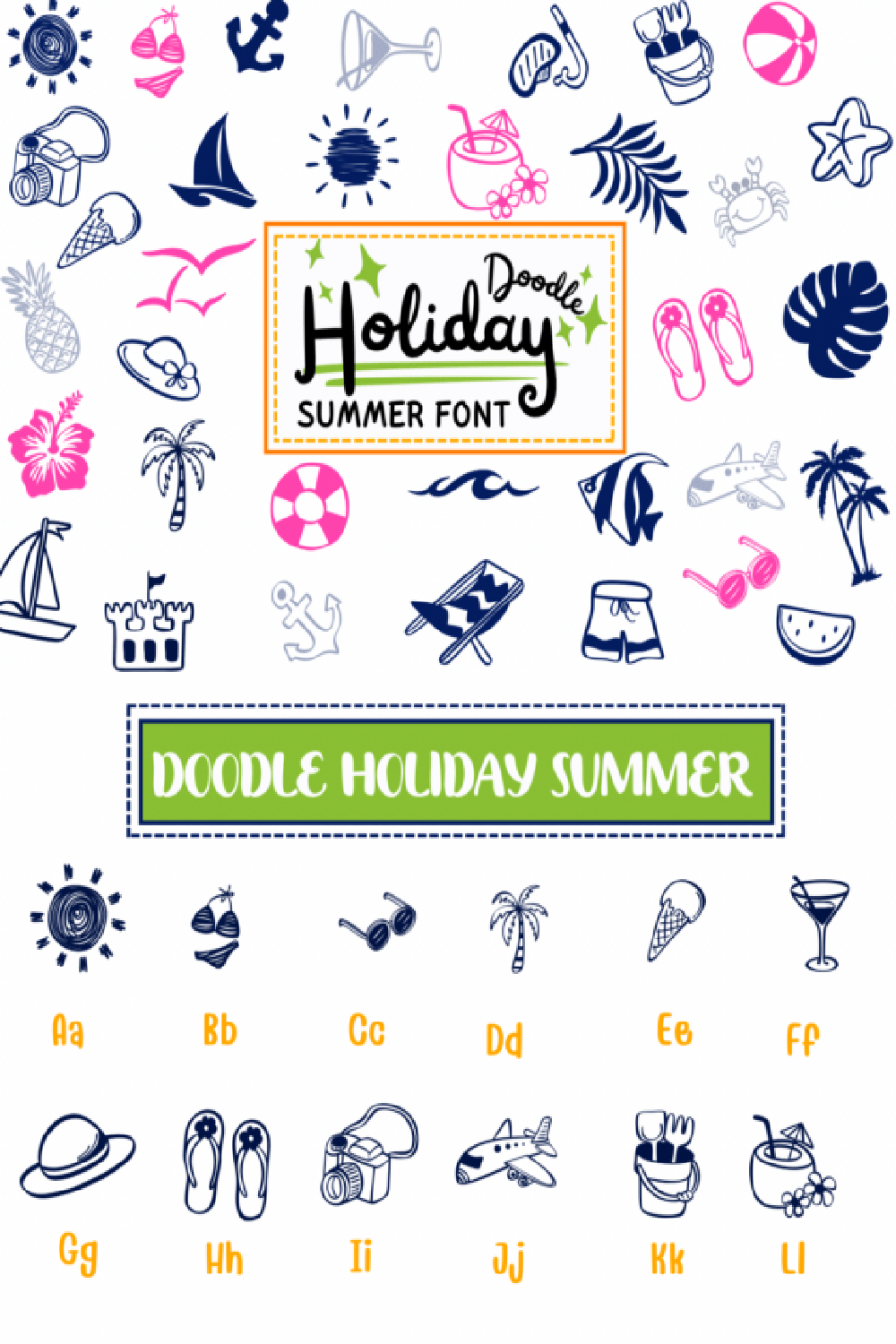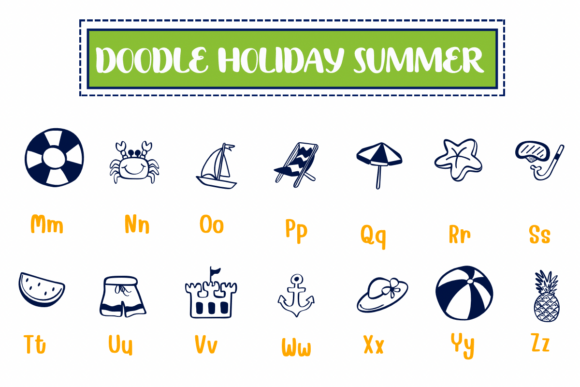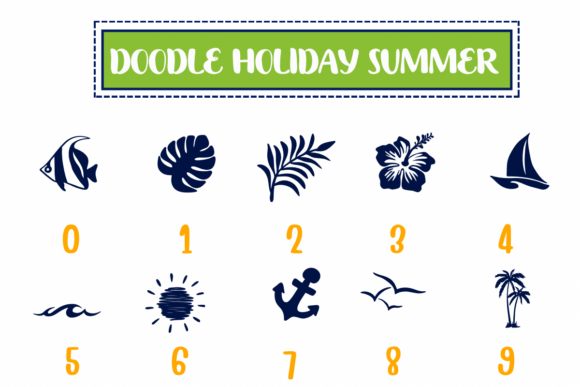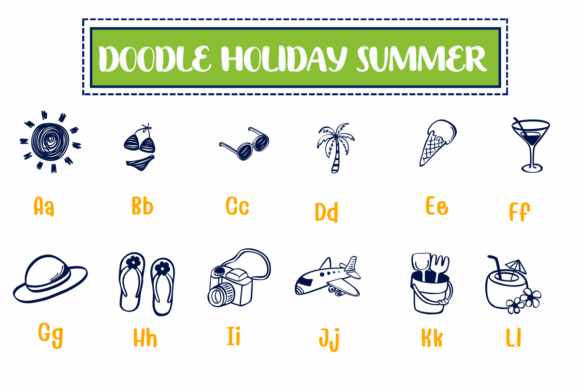
Doodle Holiday Summer Font
About the Doodle Holiday Summer Font
Unleash your creativity with Doodle Holiday Summer Font, a versatile font perfect for a wide range of applications. Holiday Doodle – Summer Font is a vibrant and playful dingbats font filled with hand-drawn summer icons. From beach balls and flip-flops to sailboats and tropical drinks, this collection captures all the fun and relaxation of a perfect vacation. Ideal for summer-themed designs, party invites, scrapbooking, stickers, and social media graphics, this font brings sunshine and joy to every project!
This font’s playful, hand-drawn nature makes it perfect for projects needing a lighthearted and summery feel. It excels in headlines, short text segments on social media, packaging for summer products, and invitations. Avoid using it for body text or lengthy paragraphs; its informal style isn’t suitable for large blocks of text or applications requiring high readability.
Consider pairing “Doodle Holiday Summer Font” with a clean sans-serif like Open Sans for a balanced contrast. For a more sophisticated feel, a delicate script font such as Great Vibes could add an elegant touch. Conversely, pairing it with a bold geometric sans-serif could create a playful, yet modern look.
The overall personality is undeniably cheerful and informal, conveying a sense of fun and summery energy. It’s best suited to brands targeting a younger demographic or those associated with leisure, vacation, or summer-related products and services.